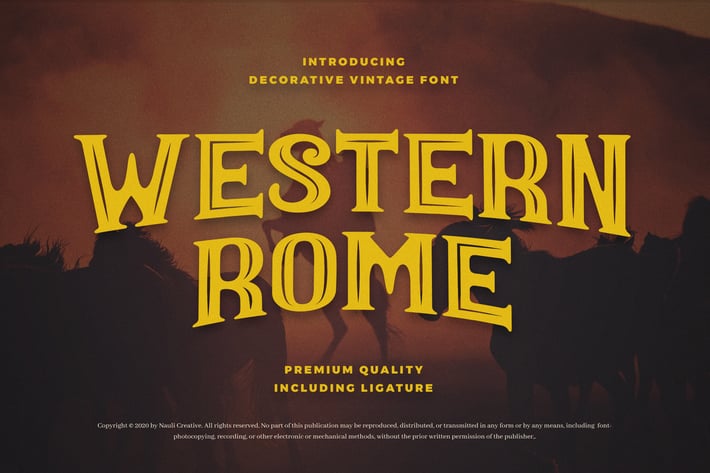
Western Rome - Vintage Western Font
Introducing Western Rome font. Are you looking for a bold vintage decorative font that has a western feeling? We can help! Try to download our Western Rome font. The font is suitable to use for many vintage related occasion such as product, branding, invitation, banner, movie title, brand, event, and many more :)
Ligatures